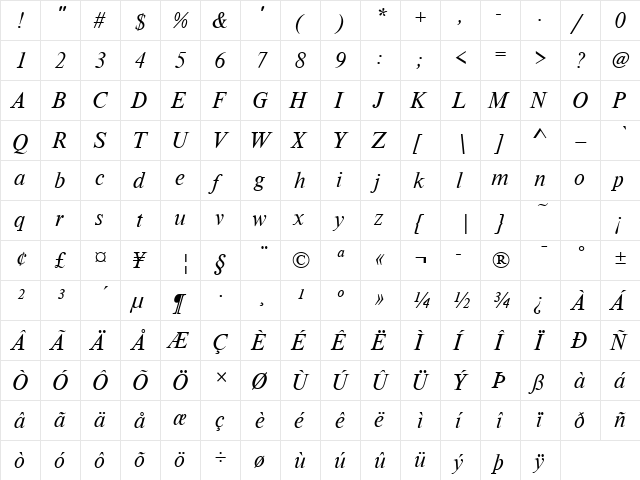
NimbusRomdItalic Regular
Design Context for NimbusRomdItalic Typeface
NimbusRomdItalic is a composed and adaptable typeface that performs quietly and consistently across a wide range of design contexts. The dynamic lean of this cut emphasises speed and emphasis in any layout.
Pro Tip: Try NimbusRomdItalic for annotation and caption copy alongside an upright companion — the contrast in angle creates a dynamic but ordered typographic system.